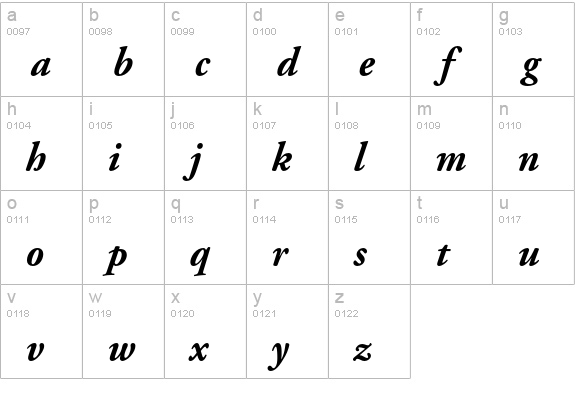
Adobe Garamond Bold Italic Oldstyle Figures Font Details
Adobe Garamond Bold Italic Oldstyle Figures is a strong, high-contrast, italic variant in the Adobe typeface family \xE2\x80\x94 well suited to headlines, attention-grabbing titles, and strong calls-to-action.
Adobe Garamond Bold Italic Oldstyle Figures is a stunning and versatile font that exudes elegance and sophistication. The bold italic style adds a touch of flair and modernity to the classic Garamond design, making it perfect for a wide range of projects, from formal invitations to high-end branding. With its oldstyle figures, this font is designed to seamlessly blend into various design aesthetics while maintaining a timeless appeal. The bold weight ensures your text stands out, making it ideal for headlines, titles, and emphasis. Best of all, Adobe Garamond Bold Italic Oldstyle Figures is available for free download at FontsMarket.com, allowing you to easily access this premium font for all your creative endeavors. Elevate your designs with the beauty and versatility of Adobe Garamond Bold Italic Oldstyle Figures today.